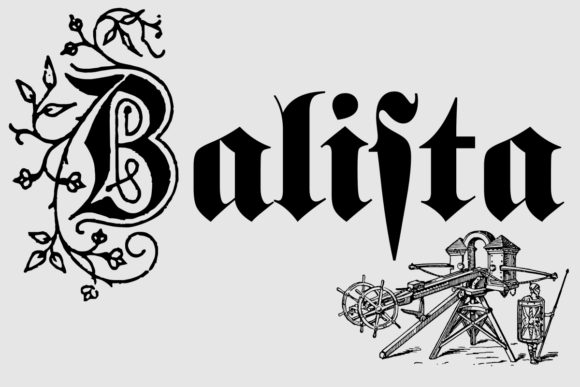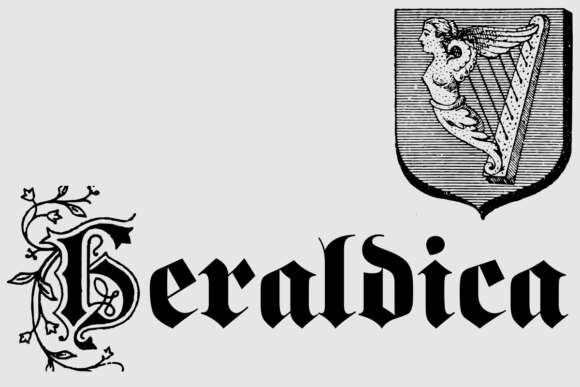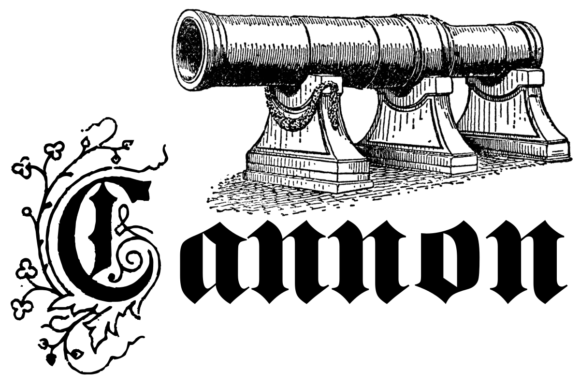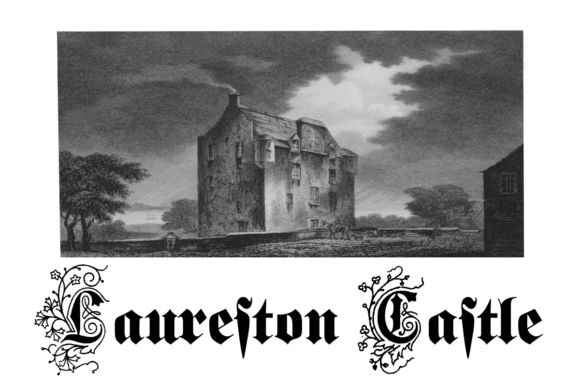
Introduction to Leotholf Font
Leotholf is a bold and thick lettered blackletter font.
Add it confidently to your projects, and you will love the results This font is PUA encoded which means you can access all of the glyphs and swashes with ease.
Key Features of Leotholf Font